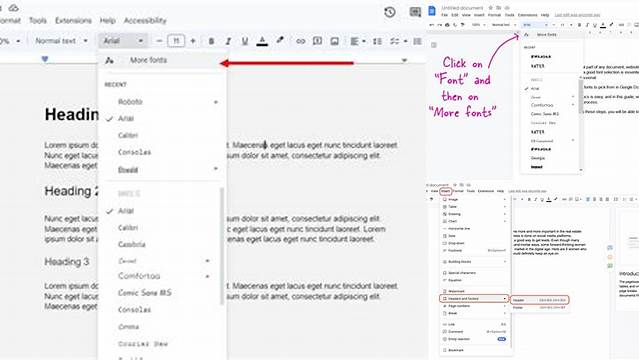
Add Custom Fonts To Google Docs: A Complete Guide
Hey everyone, are you ready to level up your Google Docs game? One of the best ways to make your documents stand out is by using custom fonts. Google Docs, in its infinite wisdom, doesn't have every font under the sun available by default. But don't sweat it! You can easily add your own custom fonts to Google Docs, which opens up a whole world of design possibilities. This guide will walk you through the process, making it super simple, even if you're not a tech whiz. We'll cover everything from finding awesome fonts to adding them to your documents and even using them effectively. So, grab your favorite beverage, and let's dive in! Adding custom fonts to Google Docs can significantly enhance the visual appeal and branding of your documents. It allows for greater creativity and personalization, setting your work apart from the generic look of default fonts. This is especially important for professionals, students, and anyone who wants to make a strong impression with their written content. This guide aims to provide a straightforward and user-friendly approach, ensuring that anyone can easily integrate custom fonts into their Google Docs workflow. We'll explore different font sources, the step-by-step process of adding them, and tips for effective usage, so you're equipped to create documents that truly stand out. Let's get started and transform your Google Docs experience! The process is really straightforward, and the payoff is huge! Adding custom fonts not only adds visual interest but also reflects your personal style and professionalism. Whether you're preparing reports, creating presentations, or writing creative content, the right font can make a massive difference. Let's break down the steps to get you started with adding custom fonts, making your documents look amazing in no time.
Finding and Selecting Custom Fonts
First things first, let's talk about finding some amazing fonts! There are tons of places where you can snag free and premium fonts. Google Fonts is your best friend here. It's a vast library of fonts, all free and open-source, which means you can use them in your Google Docs without any legal worries. Google Fonts offers a wide variety of styles, from classic serifs and sans-serifs to unique display fonts. You can browse by category, language, or even specific features like thickness and width. Seriously, it's a goldmine! Another great option is Font Squirrel. They curate a collection of high-quality, free fonts that are perfect for both personal and commercial use. Font Squirrel also has a handy font identifier tool, so if you see a font you love somewhere else, you can upload an image, and they'll try to find a match for you. Pretty neat, right? Before you start downloading fonts, think about what you'll be using them for. Consider the overall tone and style of your document. A professional report might call for a clean, readable font like Open Sans or Roboto. For something more creative, you might choose a unique display font like Montserrat or Bebas Neue. Also, make sure your chosen fonts are legible, especially at different sizes. You want your text to be clear and easy to read, so avoid fonts that are too fancy or stylized for the main body of your text. Choosing fonts that align with your project's goals is crucial. When you select a font, evaluate its weight, style, and overall design to ensure it complements the content. Consider the context in which the font will be used and how it contributes to the document's readability and visual appeal. Careful font selection contributes to your document's design, making it more engaging and memorable. Using fonts that fit the document's content and target audience can significantly enhance the impact and professionalism of your work. Keep in mind that the right font can transform a basic document into something polished and visually appealing. When choosing fonts, think about how you're going to use them. Are you writing a formal report, or are you creating something more casual? A formal document might require a classic serif font or a clean sans-serif. For something more playful, you could consider a unique display font for headlines or titles. Consistency is key! Stick to a limited number of fonts throughout your document. Too many fonts can make your document look cluttered and unprofessional. A good rule of thumb is to use one or two fonts for your headings and another one for your body text. This will make your document look clean, organized, and easy to read. Finally, always check the licensing of the fonts you download. While many fonts are free for personal use, some may require a commercial license if you're using them for business purposes. Make sure you understand the licensing terms to avoid any legal issues down the road. With these tips in mind, you're well on your way to finding the perfect custom fonts for your Google Docs projects!
Adding Custom Fonts to Google Docs
Alright, now that you've found some awesome fonts, let's get them into Google Docs! The process is super easy, and I'll walk you through it step-by-step. First, open up your Google Doc. In the top menu, click on "Format," and then select "Text." From the submenu, choose "More fonts." This will open up the font library, where you can browse and add new fonts. In the font library, you'll see a list of fonts currently available in Google Docs. At the top, there's a search bar where you can type in the name of the font you want to add. This is especially handy if you already know which font you're looking for. You can also browse the fonts by category (like serif, sans-serif, handwriting, etc.) or filter by language. This makes it easier to find fonts that match your specific needs. Once you've found a font you like, click on it to select it. A checkmark will appear next to the font, indicating that it's been added to your list of fonts. You can select multiple fonts at once, so feel free to browse and add all the fonts you think you might want to use. Once you've chosen your fonts, click the "OK" button at the bottom of the font library. This will save your selection and add the fonts to your Google Docs. Now, the fonts you added will be available in the font dropdown menu in your document. You can select any text in your document and then choose your new font from the dropdown menu to change its appearance. That's it! You've successfully added custom fonts to Google Docs. From that point on, it's all about using your newly installed fonts to enhance the look of your document. When you add custom fonts to Google Docs, you have increased control over the document's design and visual style. Selecting from a wider range of fonts lets you create documents that are both professional and unique, tailoring them to fit the particular message or purpose of the document. The ability to add custom fonts adds flexibility in design, allowing you to differentiate your documents from others and convey a particular tone or style. This enhancement helps in highlighting key information and making the text more engaging. By adding custom fonts, you can customize your documents to better represent your brand or personal style. This ability gives your documents a distinctive visual personality, making them more memorable and impacting how they are perceived. This feature makes your work stand out by making your documents more engaging and stylish. Custom fonts can make a difference by enhancing the overall visual appeal, adding professionalism, and helping your documents look more polished.
Using Custom Fonts Effectively in Google Docs
Okay, you've got your custom fonts installed. Now, let's talk about how to use them effectively to make your documents look amazing. Here are some tips to help you get the most out of your new fonts: Choose Your Fonts Wisely: Don't go font-crazy! Stick to a few fonts – usually two or three at most – to maintain a consistent and professional look. One font can be used for headings and titles, and another for the body text. Consider Readability: Always prioritize readability, especially for the body text. Make sure the font you choose is easy to read at various sizes. Avoid fonts that are too stylized or ornate for long blocks of text, as they can be difficult to read. Hierarchy is Key: Use different fonts and sizes to create a clear visual hierarchy. Use a bold or unique font for your headings to make them stand out. Use a different font or size for subheadings and body text. This will help guide the reader's eye and make your document easier to navigate. Font Pairing: Pair fonts that complement each other. Some fonts work well together, while others clash. Experiment with different combinations to see what looks best. Google Fonts has some great font pairing recommendations to help you get started. Size Matters: Adjust the font size to ensure that the text is legible and visually appealing. Headings should be larger than body text, and subheadings can be slightly smaller. Consider the overall layout of your document and how different font sizes affect the visual balance. Use Fonts Strategically: Don't overuse your custom fonts. Save them for headings, titles, or key sections of your document to add emphasis and visual interest. Using custom fonts sparingly will make them more impactful. Consistency is King: Maintain consistency throughout your document. Once you've chosen your fonts and sizes, stick with them. Consistency creates a polished and professional look, making your document more readable and visually appealing. Think of your document as a whole. The fonts should contribute to the overall design, not distract from it. Using fonts that fit the purpose of your document will help you create a more compelling and effective piece of work. By implementing these simple tips, you can effectively integrate custom fonts into your Google Docs documents. Doing so significantly enhances the aesthetic appeal and professionalism of your written content. The right fonts can help create documents that grab the reader's attention and leave a positive impression.
Sometimes, things don't go exactly as planned. Here are some common issues you might run into when adding and using custom fonts in Google Docs, along with solutions: Font Not Showing Up: If a font you added doesn't appear in the font dropdown menu, double-check that you selected it in the "More fonts" menu. Sometimes, fonts may not load instantly, so give it a few minutes, and then refresh your document. Also, check to make sure you're logged into the correct Google account. Font Looks Different: If a font looks different than expected, it may be because of different rendering on different devices. Google Docs tries to render fonts consistently, but small variations can occur. Check the font size, weight, and style to ensure they're set correctly. Font Is Missing on Other Devices: When sharing your document with others, the custom fonts will only work if they also have those fonts installed. If the other person doesn't have the font, Google Docs will substitute a default font. Make sure to tell them to add the fonts themselves if you want them to see your document as it appears. Font Download Issues: Sometimes, you may have trouble downloading fonts from certain websites. Ensure the website is secure and that you're downloading the correct font files (usually .ttf or .otf files). If you have issues, try downloading from a different source, or check the website's support documentation. By being aware of these potential issues and knowing how to troubleshoot them, you can confidently and successfully add custom fonts to Google Docs. These tips will help ensure that the fonts appear as intended, and that your documents are well-formatted and visually appealing. Don't hesitate to search for further solutions online or to reach out to Google Docs support if you encounter more complex problems. Getting help is always an option.
So there you have it! Adding custom fonts to Google Docs is a breeze, and it can significantly improve the look and feel of your documents. From finding the right fonts on Google Fonts or Font Squirrel to adding them to your Google Docs and using them effectively, you're now equipped to create documents that stand out. Remember to choose your fonts wisely, focus on readability, create a clear hierarchy, and maintain consistency throughout your document. With a little bit of creativity, you can use custom fonts to express your personal style and elevate your work. Now go out there and start creating some awesome documents! Adding custom fonts is not just about aesthetics; it's also about branding and making a memorable impression. So, have fun experimenting with different fonts, and don't be afraid to get creative. Happy documenting, everyone!